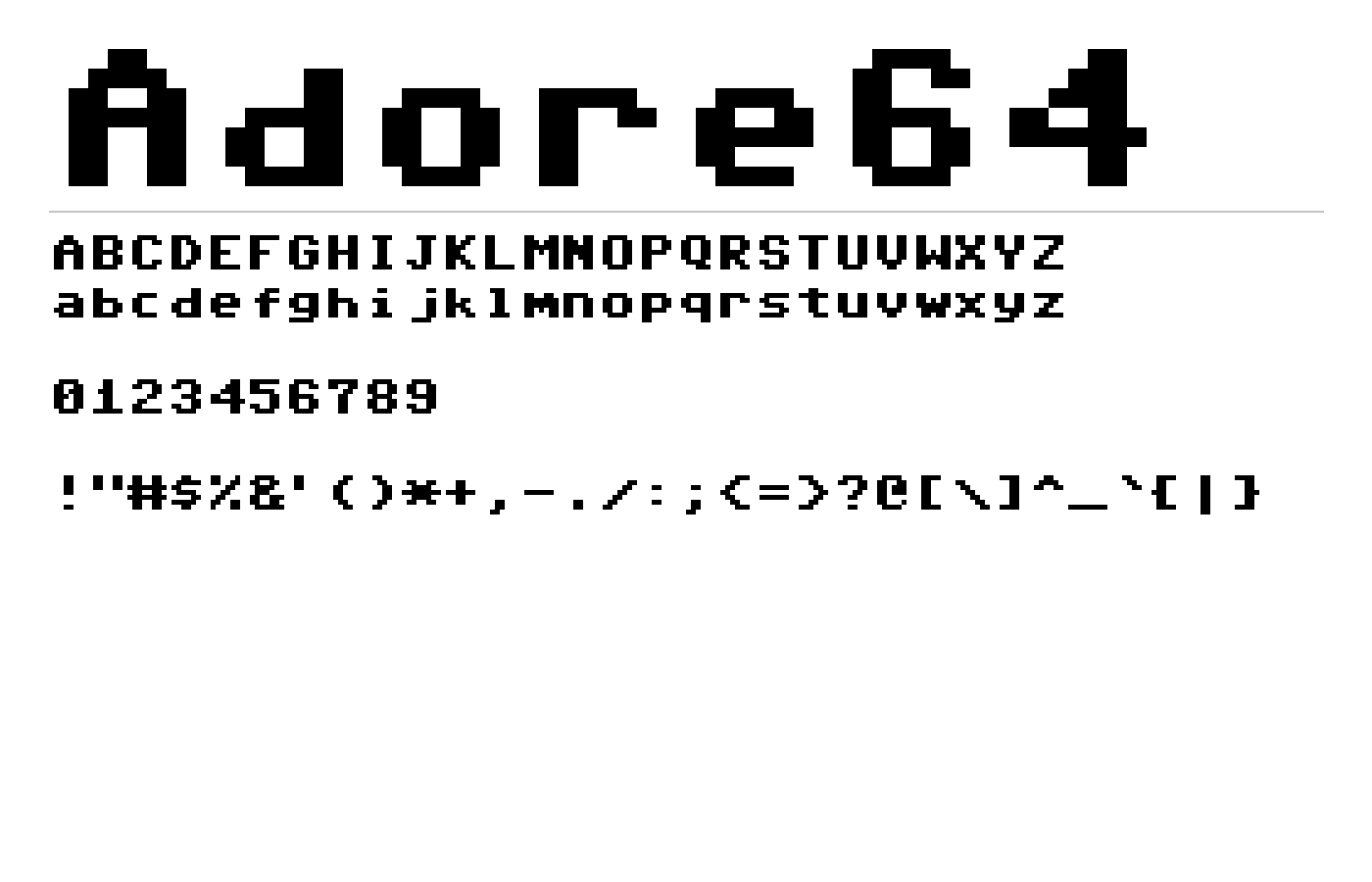
Adore64 is a pixelated sans serif font that channels retro digital and 8-bit video game aesthetics with its blocky, square-edged characters. Offering a monospaced feel with consistent stroke weight and a distinctly low-resolution charm, it’s perfect for vintage gaming, tech, and nostalgic designs that want to evoke a playful yet functional look. This font works best in logos, posters, or digital media where a bold, geek-culture vibe is desired.
Adore64 Font
About Adore64 Font